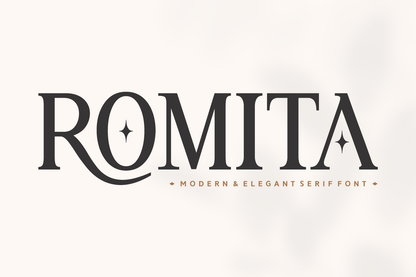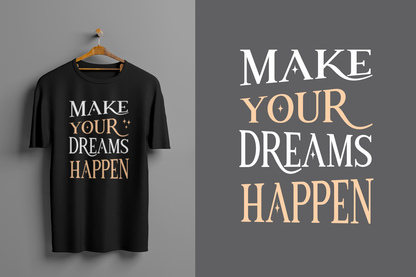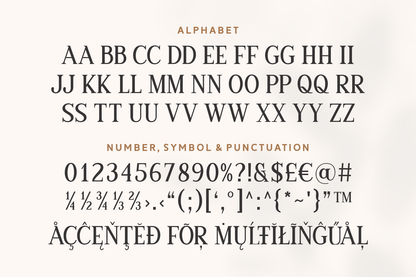
Romita is a modern and elegant serif font with a distinctive personality and enchanting charm. Its graceful curves and decorative elements add a sense of magic and sophistication, making it ideal for designers looking to craft unique, upscale, and memorable visuals.